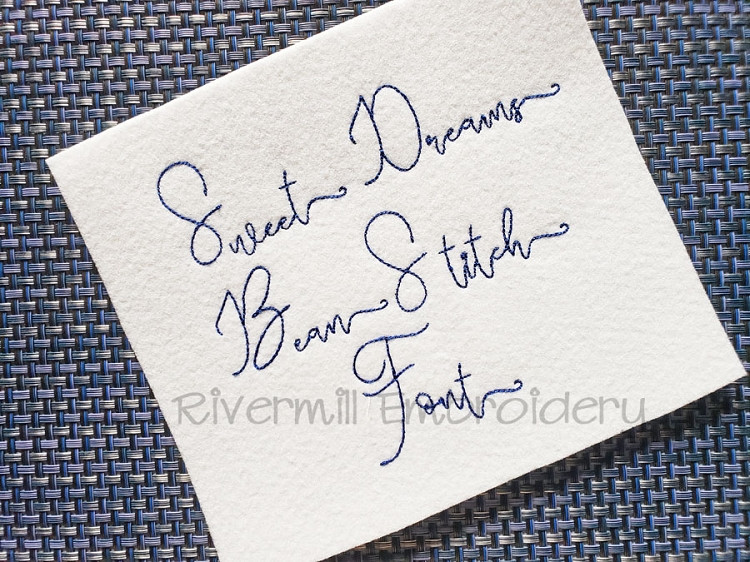
Bean Stitch Sweet Dreams Machine Embroidery Font Alphabet
The set comes with upper and lower case letters, numbers 0-9, and alternate lower case letters with swirls (a left set and a right side set).